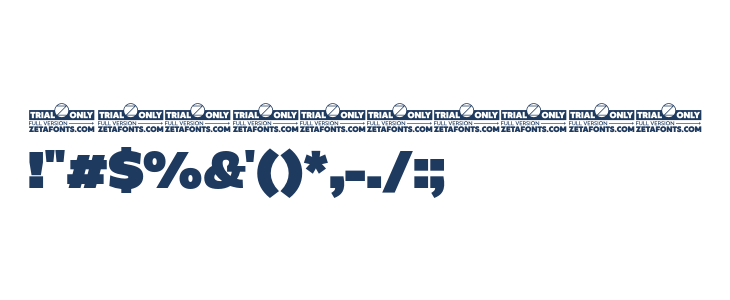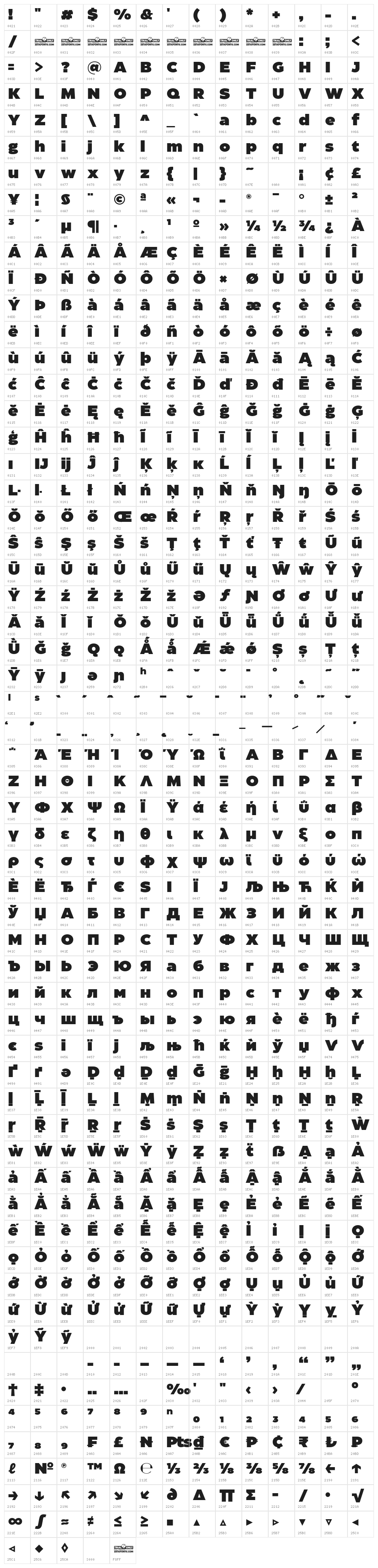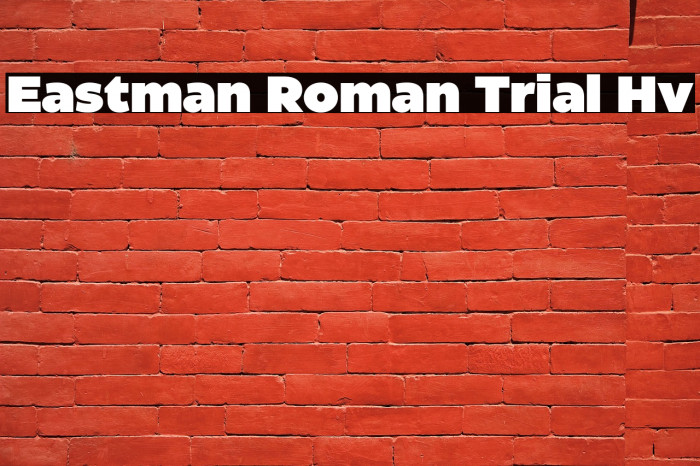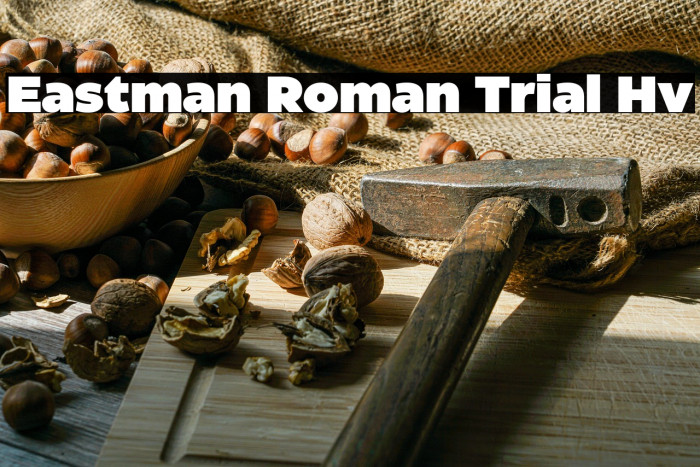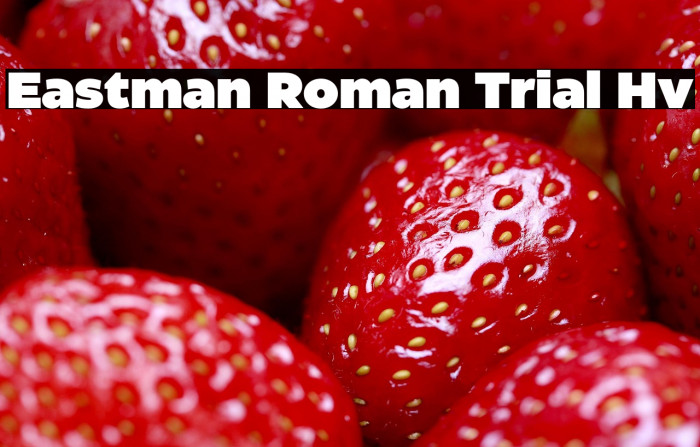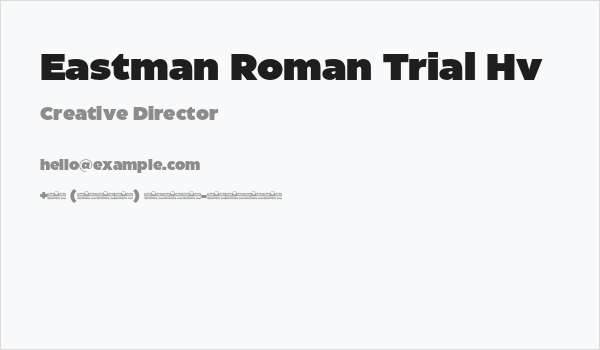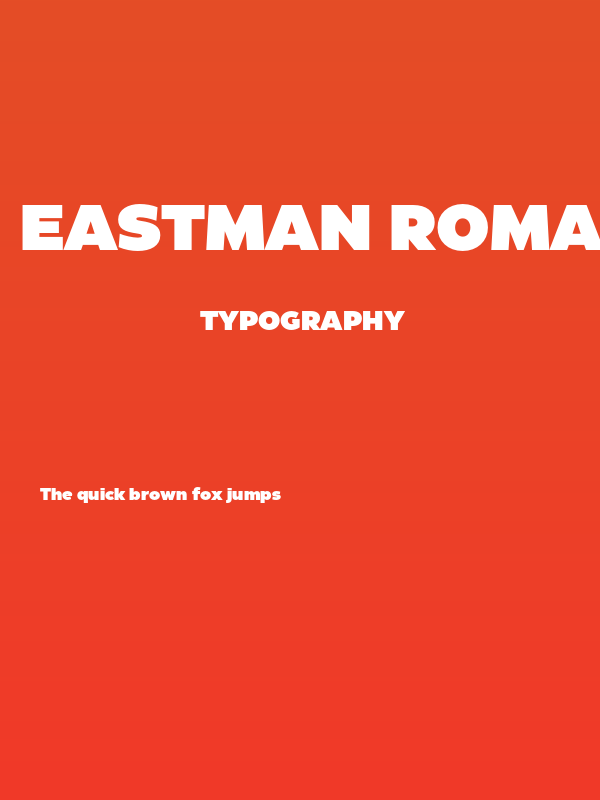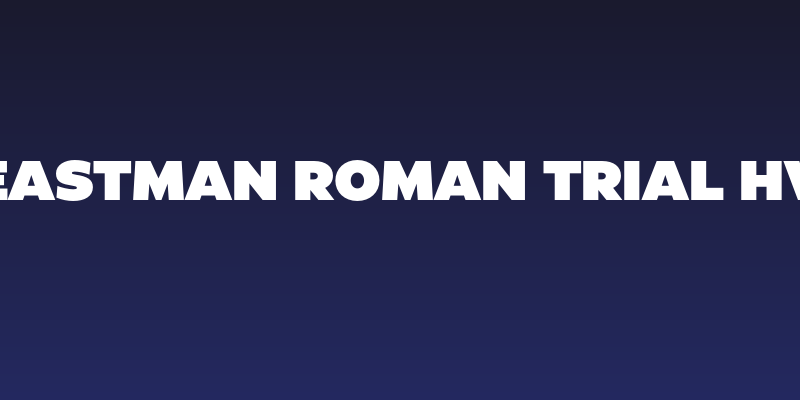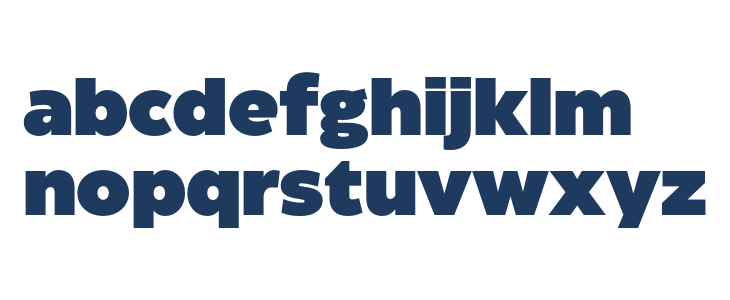
Eastman Roman Trial Hv Font
Eastman Roman Trial Hv Description
This font features a bold and robust design, characterized by its thick, uniform strokes and strong presence. The uppercase and lowercase letters maintain a consistent weight, contributing to a cohesive and impactful look. The characters are well-defined with minimal contrast, emphasizing clarity and readability. The font's geometric shapes and clean lines give it a modern and professional appearance, making it suitable for a variety of design applications. Its boldness ensures that it stands out, making it ideal for attention-grabbing headlines and titles.
| Proposed Projects | Ideal for branding, advertising, posters, and headlines where a strong visual impact is needed. |